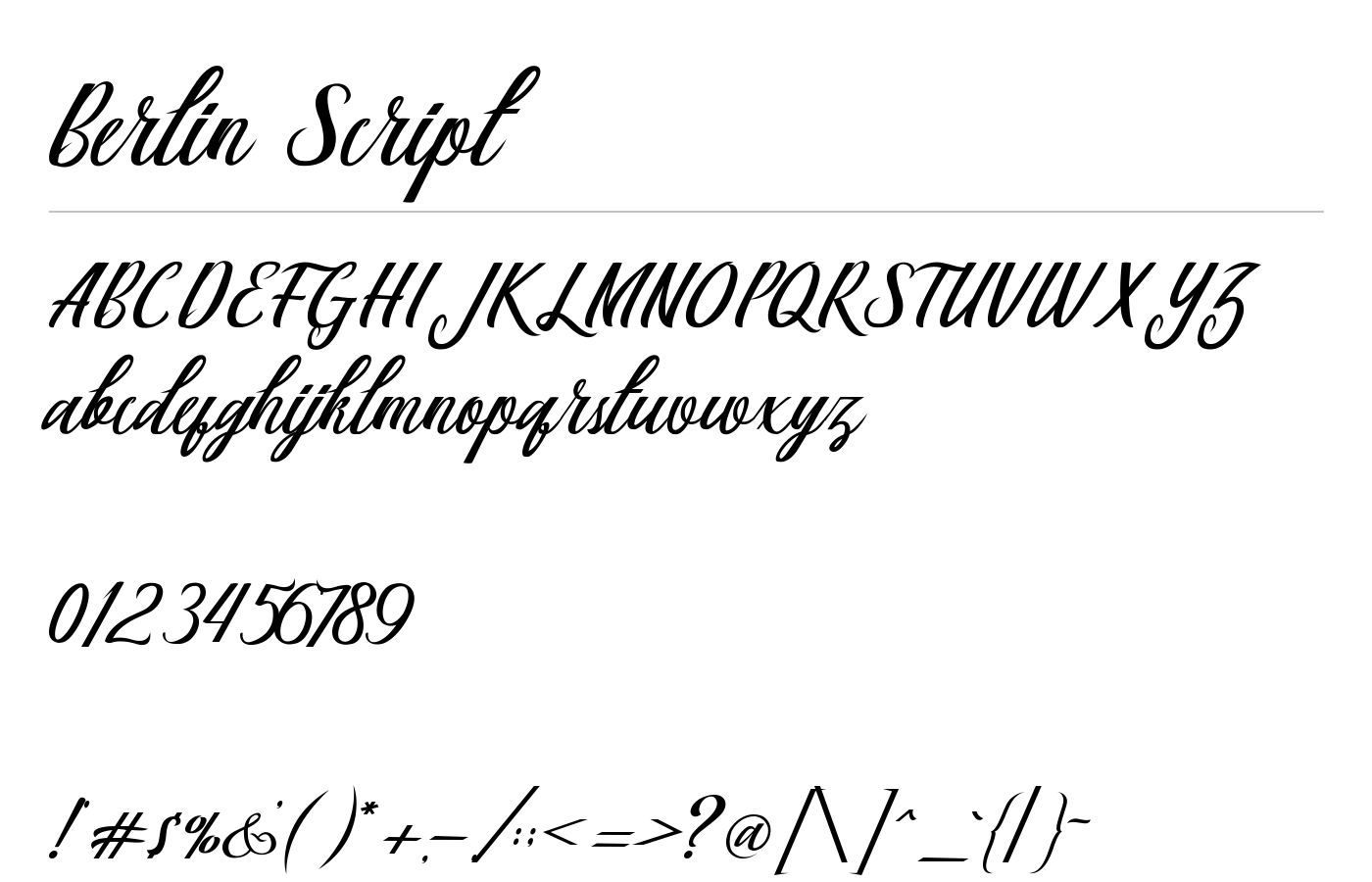
Berlin Script is an elegant, flowing script font characterized by its slender, slightly condensed letterforms and smooth, calligraphic strokes. It has a stylish and modern feel, making it ideal for branding, logos, and invitations where a sophisticated yet approachable touch is desired. Its refined curves and moderate contrast give it a graceful personality that works well in fashion, beauty, and luxury contexts.
Berlin Script Font
About Berlin Script Font
| Font family | Berlin Script Font |
| Designer | Debut Studio |